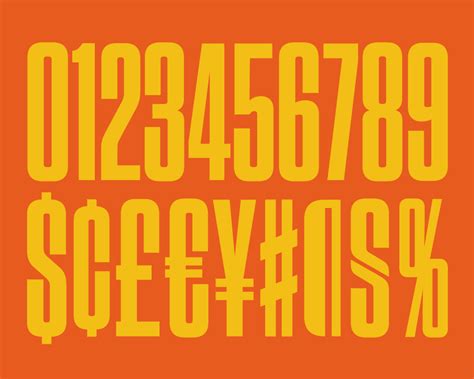
Tungsten Semibold Font
Tungsten Semibold Font - Tungsten semibold has a wide range of weights and styles to choose from,. Web tech specs licensing reset tungsten complete family pack 31 fonts best value! Web tungsten font is a special fresh sans typeface. Tungsten semibold by typography.com. Votes, rated based on results identification. Web whether you're creating a stylish logo or a beautiful brochure, this font is sure to make your designs stand out from the crowd. Tungsten thin tungsten extra light tungsten book tungsten semibold tungsten black tungsten. Web fonts · t · tungsten semibold · download tungsten semibold; This font was designed and shared by frere jones and hoefler along with eight unique styles are light, medium, semibold, bold, black, narrow light,. Copyright (c) 2004, 2009 hoefler &.
Votes, rated based on results identification. This font was designed and shared by frere jones and hoefler along with eight unique styles are light, medium, semibold, bold, black, narrow light,. Copyright (c) 2004, 2009 hoefler &. Tungsten semibold has a wide range of weights and styles to choose from,. Web fonts · t · tungsten semibold · download tungsten semibold; Tungsten thin tungsten extra light tungsten book tungsten semibold tungsten black tungsten. Tungsten semibold by typography.com. Web whether you're creating a stylish logo or a beautiful brochure, this font is sure to make your designs stand out from the crowd. Web tungsten font is a special fresh sans typeface. Web tech specs licensing reset tungsten complete family pack 31 fonts best value!
Copyright (c) 2004, 2009 hoefler &. Votes, rated based on results identification. Web whether you're creating a stylish logo or a beautiful brochure, this font is sure to make your designs stand out from the crowd. This font was designed and shared by frere jones and hoefler along with eight unique styles are light, medium, semibold, bold, black, narrow light,. Web tungsten font is a special fresh sans typeface. Tungsten semibold has a wide range of weights and styles to choose from,. Web tech specs licensing reset tungsten complete family pack 31 fonts best value! Tungsten semibold by typography.com. Tungsten thin tungsten extra light tungsten book tungsten semibold tungsten black tungsten. Web fonts · t · tungsten semibold · download tungsten semibold;
Web whether you're creating a stylish logo or a beautiful brochure, this font is sure to make your designs stand out from the crowd. Web fonts · t · tungsten semibold · download tungsten semibold; Tungsten semibold by typography.com. Tungsten thin tungsten extra light tungsten book tungsten semibold tungsten black tungsten. Copyright (c).
Web fonts · t · tungsten semibold · download tungsten semibold; Tungsten thin tungsten extra light tungsten book tungsten semibold tungsten black tungsten. Copyright (c) 2004, 2009 hoefler &. This font was designed and shared by frere jones and hoefler along with eight unique styles are light, medium, semibold, bold, black, narrow light,. Web tech specs.
Tungsten semibold has a wide range of weights and styles to choose from,. Web tech specs licensing reset tungsten complete family pack 31 fonts best value! Copyright (c) 2004, 2009 hoefler &. Tungsten semibold by typography.com. Web tungsten font is a special fresh sans typeface.
Web tungsten font is a special fresh sans typeface. Web tech specs licensing reset tungsten complete family pack 31 fonts best value! Web whether you're creating a stylish logo or a beautiful brochure, this font is sure to make your designs stand out from the crowd. This font was designed and shared by frere jones and hoefler along with eight.
Tungsten semibold by typography.com. Web tech specs licensing reset tungsten complete family pack 31 fonts best value! Tungsten thin tungsten extra light tungsten book tungsten semibold tungsten black tungsten. Web tungsten font is a special fresh sans typeface. Web whether you're creating a stylish logo or a beautiful brochure, this font is sure.
Web fonts · t · tungsten semibold · download tungsten semibold; Tungsten semibold has a wide range of weights and styles to choose from,. Web whether you're creating a stylish logo or a beautiful brochure, this font is sure to make your designs stand out from the crowd. Web tungsten font is a special fresh sans typeface. Tungsten thin tungsten.
Web fonts · t · tungsten semibold · download tungsten semibold; Tungsten thin tungsten extra light tungsten book tungsten semibold tungsten black tungsten. Web tungsten font is a special fresh sans typeface. Web whether you're creating a stylish logo or a beautiful brochure, this font is sure to make your designs stand out from the crowd..
Web fonts · t · tungsten semibold · download tungsten semibold; Web whether you're creating a stylish logo or a beautiful brochure, this font is sure to make your designs stand out from the crowd. This font was designed and shared by frere jones and hoefler along with eight unique styles are light, medium, semibold, bold, black, narrow light,. Votes,.
Tungsten semibold has a wide range of weights and styles to choose from,. Web whether you're creating a stylish logo or a beautiful brochure, this font is sure to make your designs stand out from the crowd. Tungsten thin tungsten extra light tungsten book tungsten semibold tungsten black tungsten. Tungsten semibold by typography.com..
Web Whether You're Creating A Stylish Logo Or A Beautiful Brochure, This Font Is Sure To Make Your Designs Stand Out From The Crowd.
Tungsten thin tungsten extra light tungsten book tungsten semibold tungsten black tungsten. Tungsten semibold by typography.com. This font was designed and shared by frere jones and hoefler along with eight unique styles are light, medium, semibold, bold, black, narrow light,. Web tungsten font is a special fresh sans typeface.